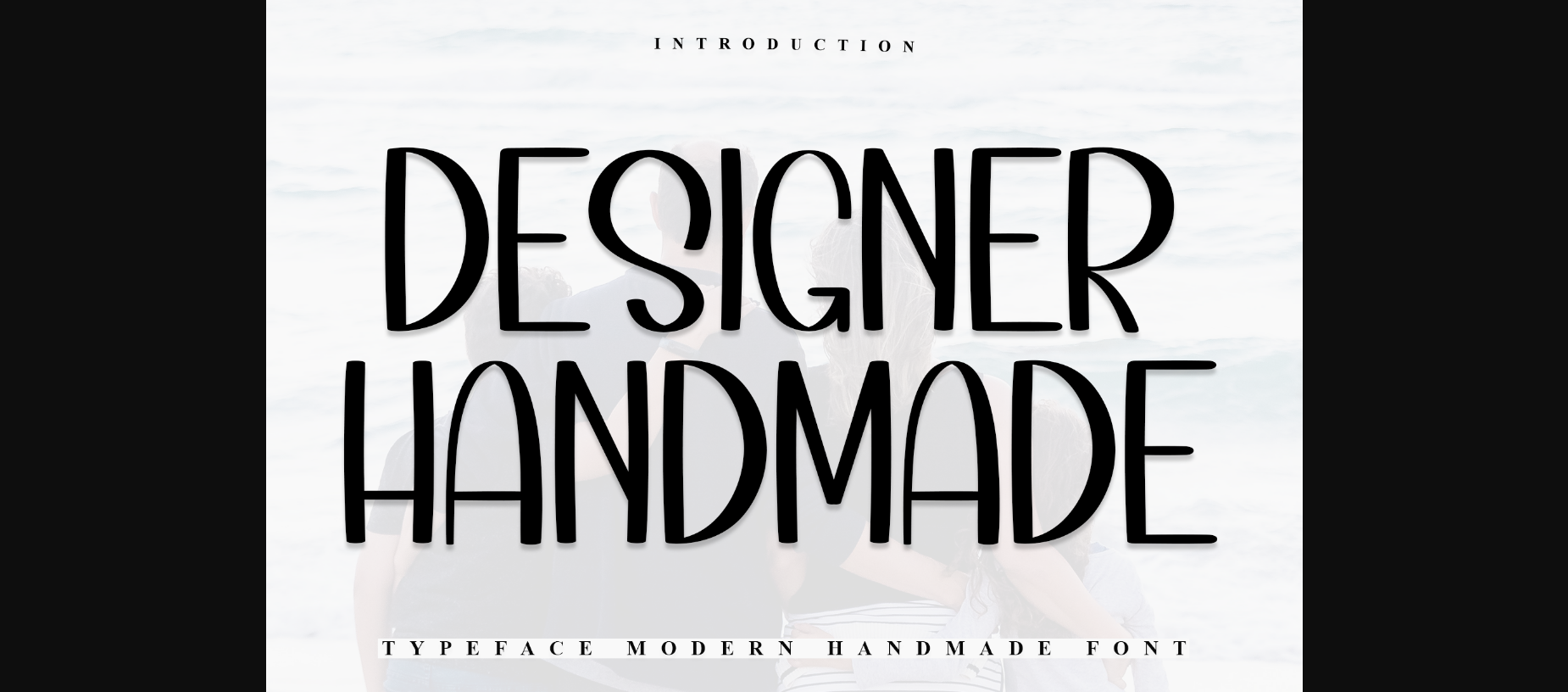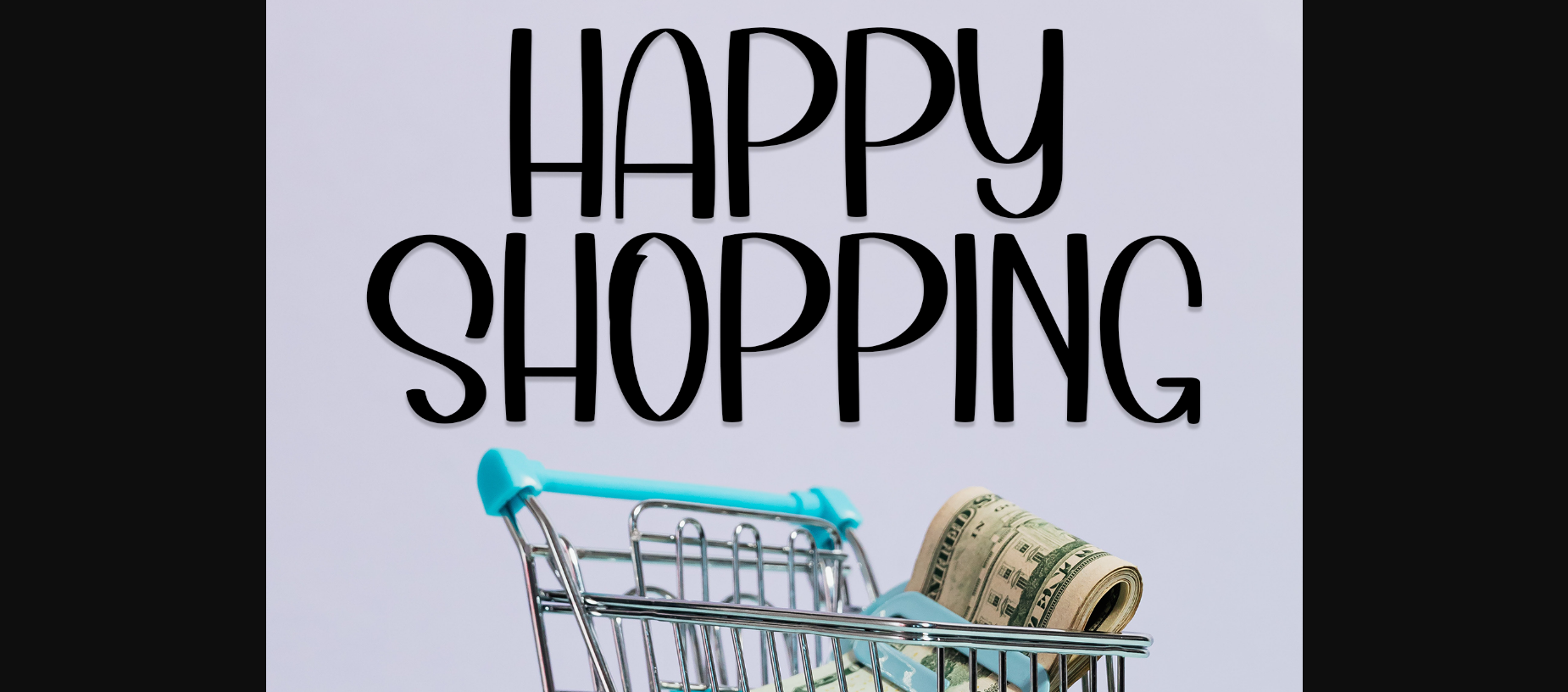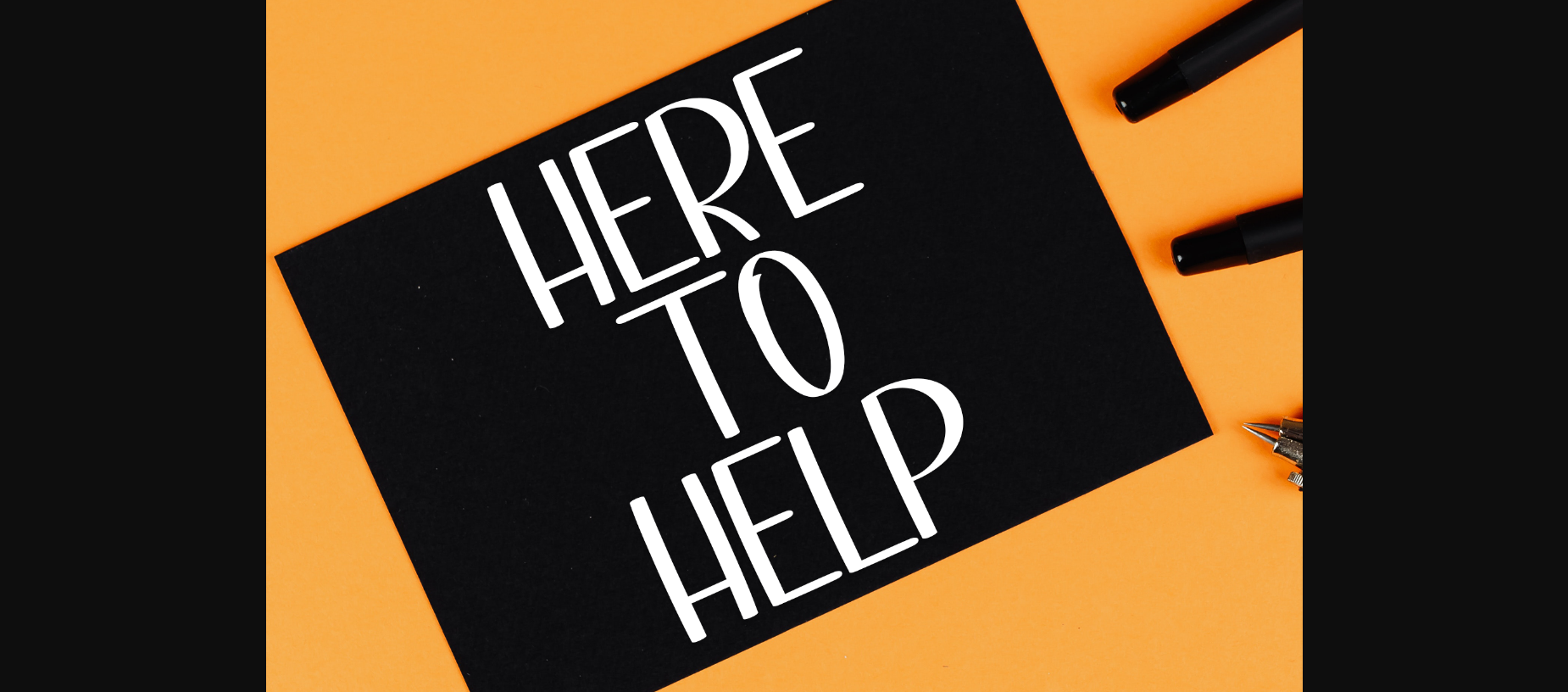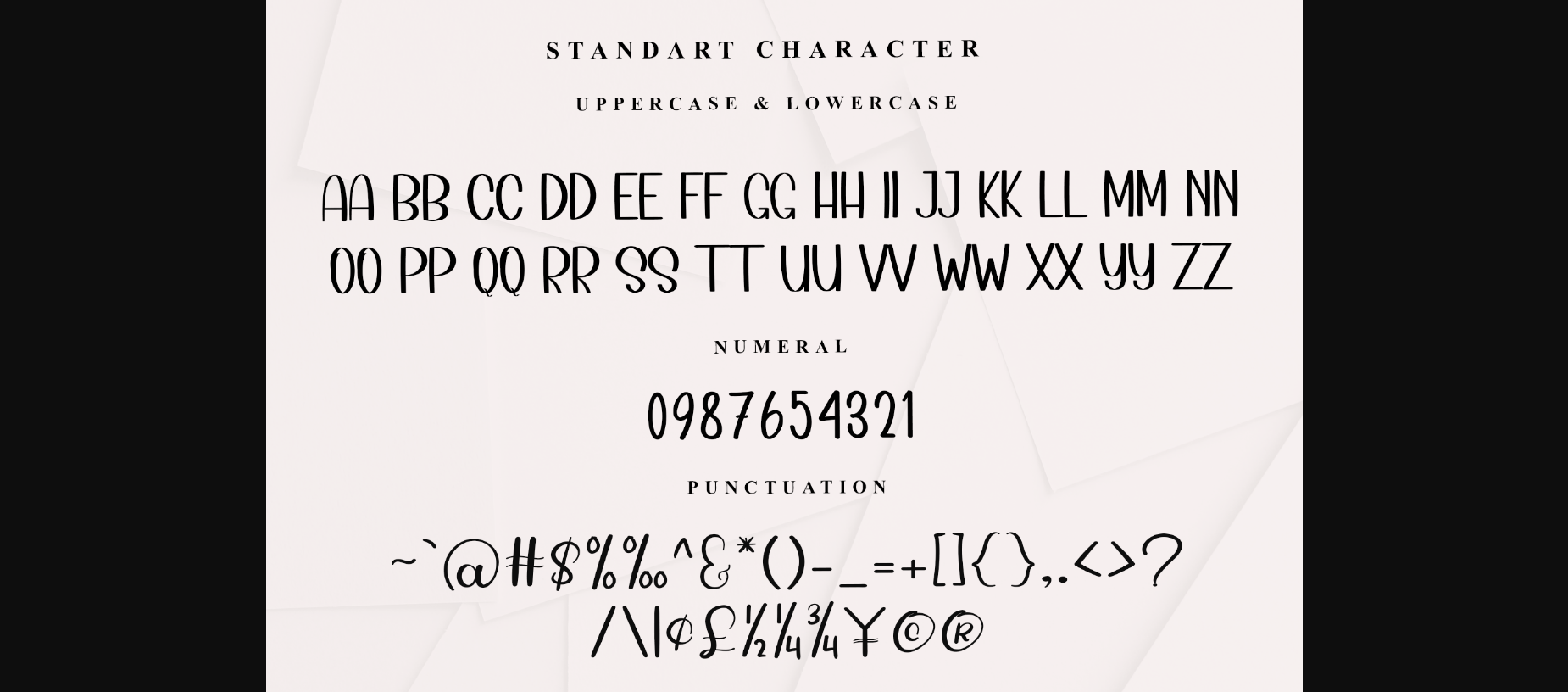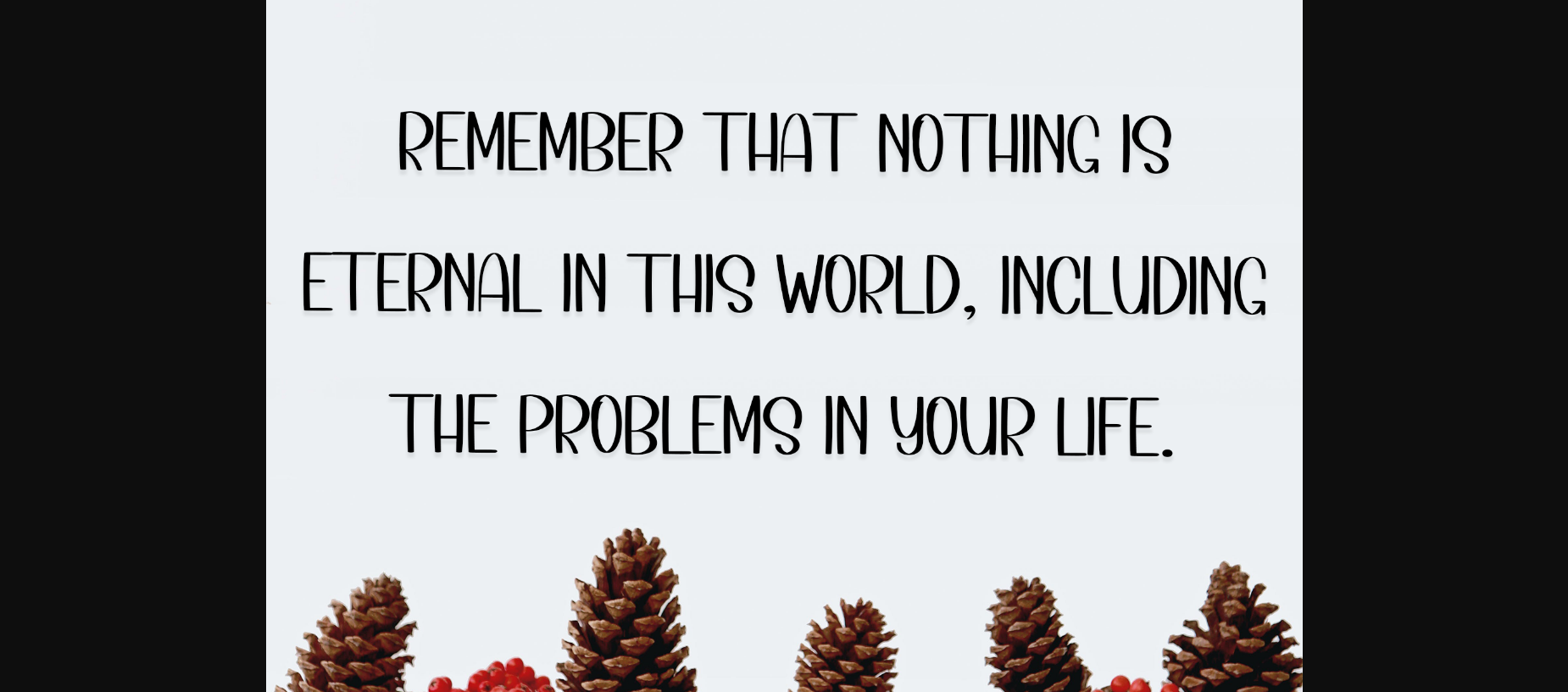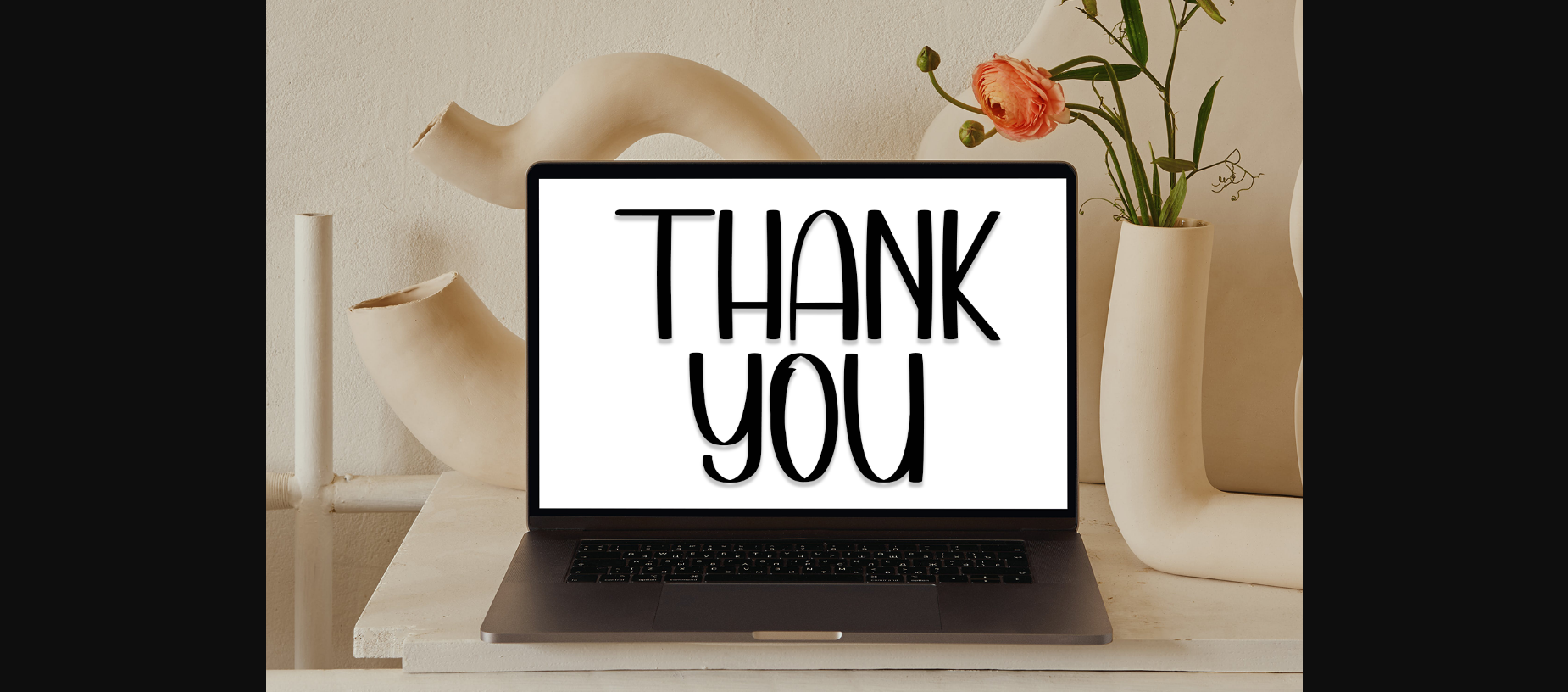
Designer Handmade Font
About Designer Handmade Font
Designer Handmade is a charming sans-serif font that exudes warmth and personality. With its playful yet legible style, this font adds a touch of whimsy to any project. Perfect for greeting cards, invitations, and branding, this font captures the essence of handmade authenticity with its natural strokes and irregularities.